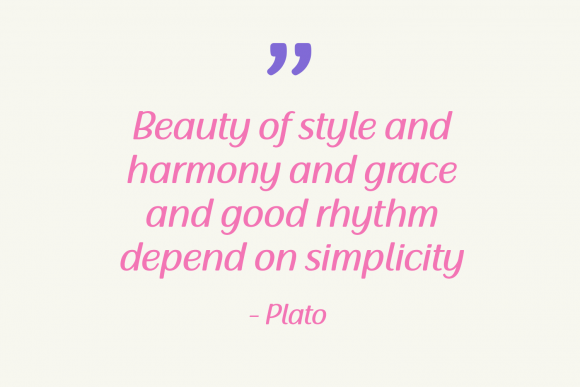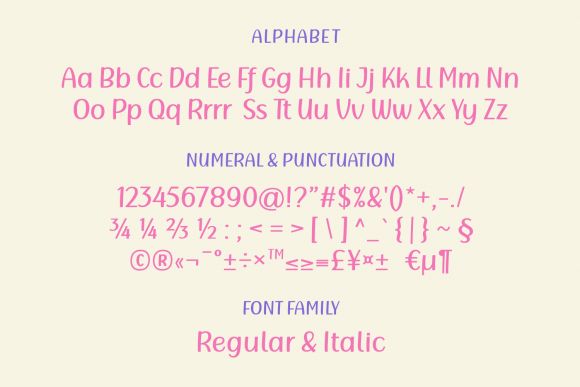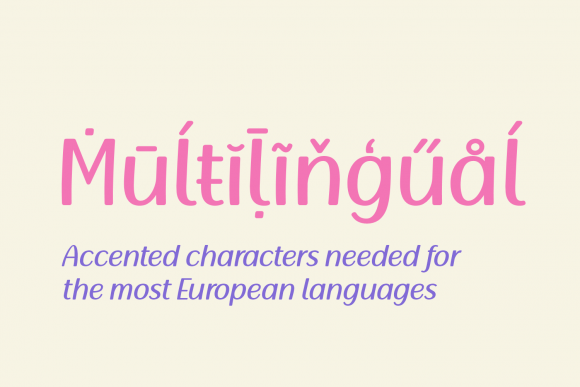
Beautiful in Simplicity Font
About Beautiful in Simplicity Font
Beautiful in Simplicity is a sweet and cursive handwritten font. This gentle font will look gorgeous on a variety of design ideas. It will add a joyful and romantic touch to each of your projects!